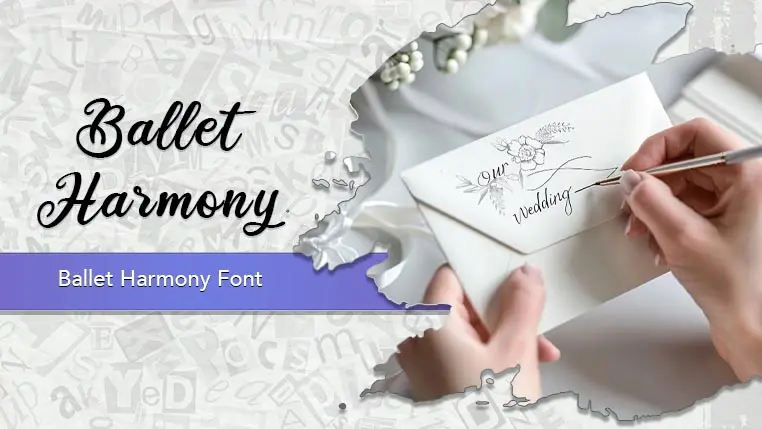
The Ballet Harmony font family may be ideal for you if you enjoy working on an artistic design project. The lively, expressive look of this typeface, which was created by cove703, makes it ideal for Wedding Invitations and Stationery, Greeting Cards and Personalized Gifts. Also Social Media Graphics for quotes, announcements, or stylish overlays on images to create an elegant and engaging presence. and other light-hearted visual projects.
Ballet Harmony are the one primary font styles of the Ballet Harmony font family. You may build dynamic, visually appealing text layouts with the distinct flair that each style offers. With crisp, readable lines and a relaxed tone.